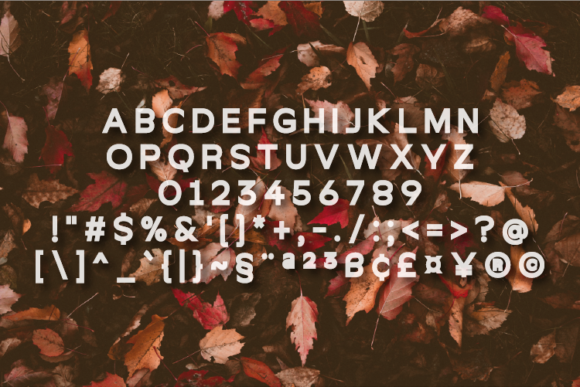
Unleash Your Creativity with Hynho Font
Have you ever stared at a blank page, waiting for the perfect font to spark your next design project? The blank page can be intimidating, but with the right tool, it can become a canvas waiting to be filled with creativity. That’s where Hynho Font comes in – a contemporary sans serif font that’s sure to elevate your designs and leave a lasting impression.
This versatile font is perfect for designers looking to add a touch of sophistication to their work. With its perfectly balanced mix of smooth and sharp elements, Hynho Font is the ideal choice for any design need. Whether you’re creating a logo, brochure, or website, Hynho Font is sure to complement your design and make it stand out.
As a valuable asset in any designer’s toolkit, Hynho Font is a game-changer for those looking to take their designs to the next level. Its unique blend of style and functionality makes it an essential addition to any design project, and we can’t wait to see what you create with it.
Hynho Font Key Features
- Unique Characteristics: Geometric sans-serif design, unique letterforms, and subtle texture, ideal for modern and minimalist designs
- Character Set: Supports Latin, Cyrillic, and Greek alphabets, with over 800 glyphs
Hynho Font Review
I recently had the chance to dive into the Hynho Font, and I must say it’s been an interesting experience. There are definitely some positives, but also some areas that need improvement.
- ✨ Unique Design: The Hynho Font has a distinct, quirky feel that can add a lot of character to a design.
- ✨ Versatility: It can be used for both display and body text, making it a great choice for a wide range of projects.
- ✨ Large Character Set: The font includes a vast character set, including a variety of languages and symbols.
- ⚠️ Limited Readability: In certain situations, the font’s unique design can make it difficult to read, especially at smaller font sizes.
- ⚠️ Lack of Consistency: The font’s irregularities can sometimes make it look unpolished or unfinished.
Overall, the Hynho Font is an interesting choice for designers looking to add some personality to their work. While it has its limitations, it can be a great option for the right project. However, I would recommend using it with caution and in conjunction with other fonts to ensure readability and consistency.
Tips for Getting the Most Out of Hynho Font
Here are some tips for getting the most out of Hynho Font:
– Experiment with different font sizes and colors to create visual interest.
– Use Hynho Font in combination with other fonts to create a unique and eye-catching design.
– Pay attention to kerning and letter spacing to ensure clean and legible text.
Hynho Font is commonly used in:
– Branding and logo design
– Advertising and marketing materials
– Digital signage and display graphics
– Print materials such as business cards and brochures
Alternatives to Hynho Font for Designers
The Dancing Script Font is a lively and energetic script font that’s perfect for adding a playful touch to your designs. It’s ideal for use in titles, headings, and quotes, and works well for both digital and print media.